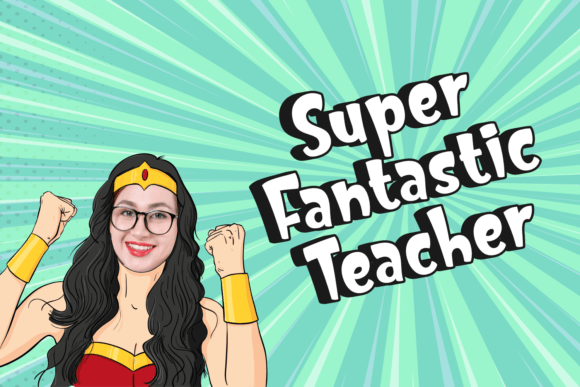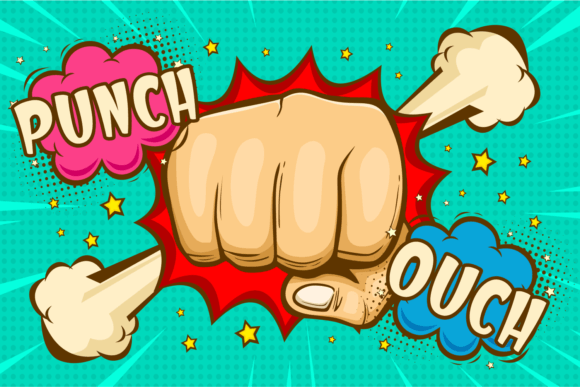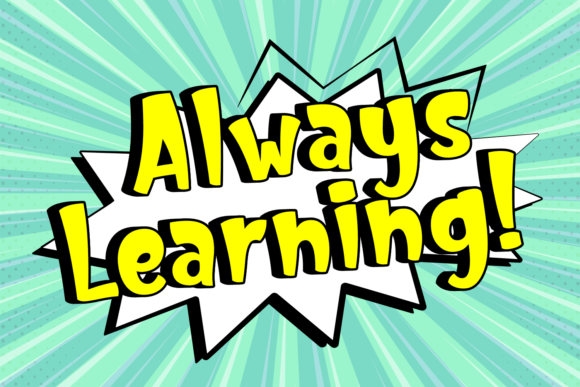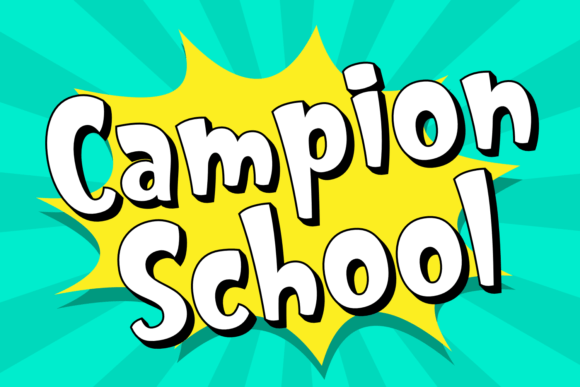
The Joy of Discovery: Finding the Perfect Font for Your Design Projects
I still remember the time I was working on a back-to-school project for a client, and I just couldn’t seem to find the right font. I had tried countless options, but nothing seemed to capture the playful, friendly vibe I was going for. That’s when I stumbled upon the Campion School font, and it was like a breath of fresh air. This fun and quirky display font quickly became my go-to for all sorts of design projects, from kids’ t-shirts to posters and product packaging.
An Honest Review of Campion School Font
So, what makes Campion School font so special? Let’s dive into the good stuff and some of the quirks I’ve discovered.
- ✨ Unique and creative design that’s perfect for creating cute and friendly typography designs
- ✅ Highly versatile and can be used for a wide range of projects, from kids’ t-shirts to posters and product packaging
- 🎉 Fun and playful vibe that’s sure to grab attention
- 💻 Easy to read and works well in both digital and print formats
- 🤔 Some letters may appear a bit narrow or tall, which can affect readability at smaller sizes
- ⚠️ Limited availability of stylistic alternates, which may limit design flexibility
The Story Behind Campion School Font
Campion School font was designed with the intention of creating a fun, playful typeface that captures the spirit of childhood and learning. The designer aimed to craft a font that’s both cute and friendly, making it perfect for projects that require a touch of whimsy. While the exact story behind the font’s creation may be unknown, it’s clear that Campion School font has become a beloved addition to many designers’ font libraries.
| What type of projects is Campion School font best suited for? | Campion School font is perfect for kids’ t-shirts, back-to-school projects, posters, product packaging, mobile games, headlines, and more. |
| Is Campion School font easy to read? | Yes, Campion School font is designed to be easy to read, making it suitable for both digital and print formats. |